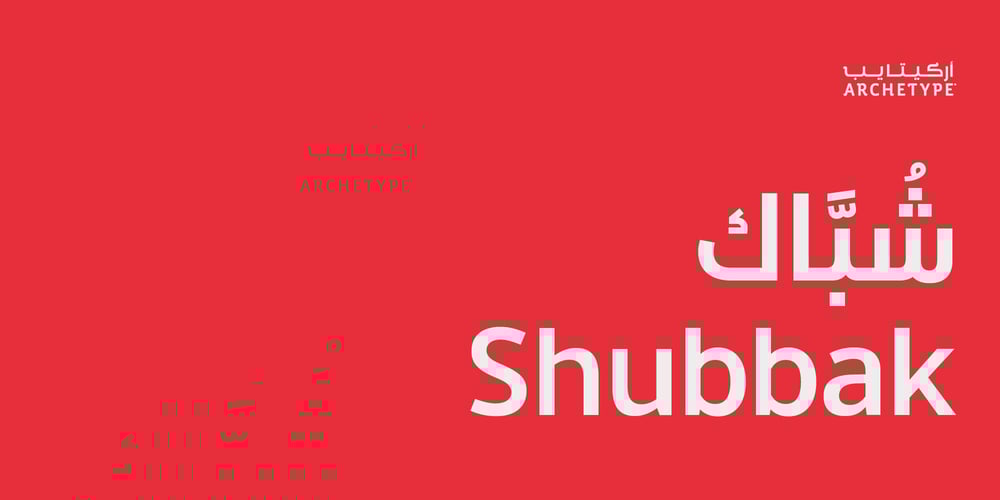
Shubbak Font Family was designed by Abdelrahman Farahat, Ruh Al-Alam and published by Archetype Foundry. Shubbak contains 8 styles and family package options. Shubbak (‘window’ in Arabic) is a highly flexible Arabic Sans (Kufic) typeface that was designed to work with a wide range of Latin counterparts. A friendly and human typeface family that is very flexible to use when coupled with many popular fonts you may use. Full set of Arabic, Farsi (Persian) and Urdu character sets as well as a basic Latin set are included. There is also a Variable version of Shubbak. Designed originally by British designer Ruh Al-Alam, further developed by Mohammed Gabr, Muhammad Hadi and then fully expanded by Abdelrahman Farahat. Archetype Foundry aims to help revolutionise and spread the use of beautiful Arabic and multi-lingual typefaces.